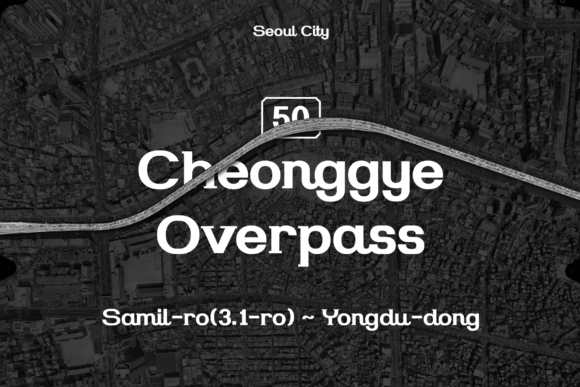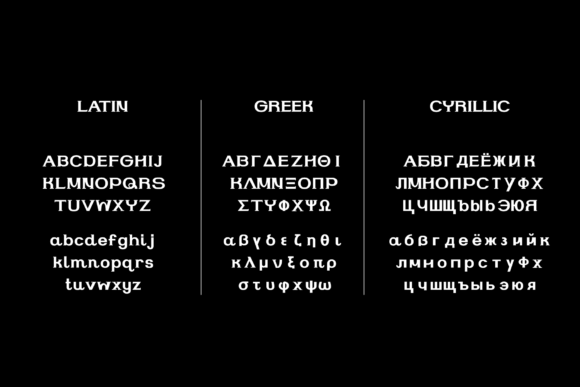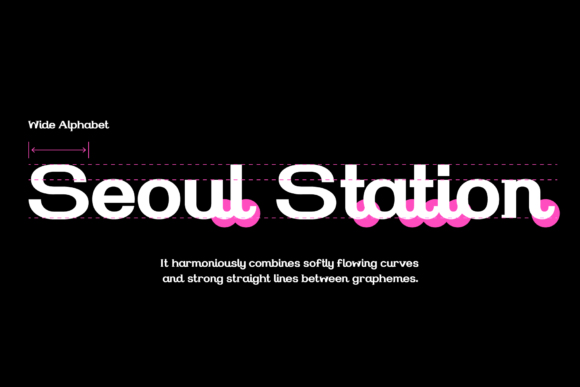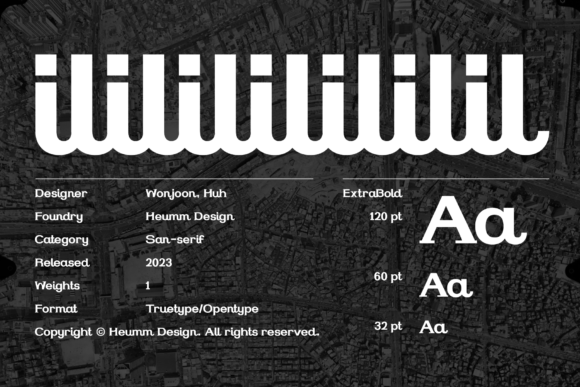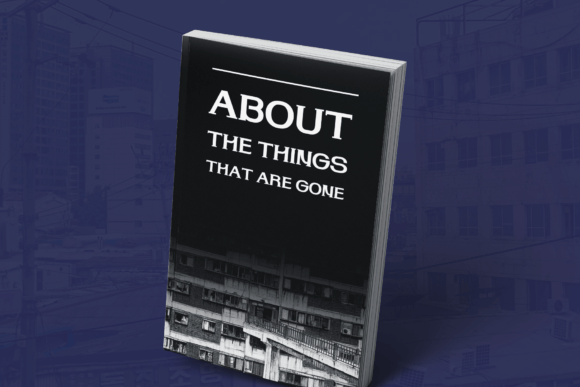
The Retro Charm of Cheonggye Font: A Designer’s Delight
I still remember the project that led me to discover the Cheonggye font. I was working on a branding campaign for a vintage-inspired clothing line, and I was struggling to find the perfect typeface that would evoke the right amount of nostalgia and playfulness. That’s when I stumbled upon Cheonggye, a typeface that immediately caught my attention with its thick strokes, wide flats, and retro feel. In this article, I’ll share my experience with Cheonggye, its features, and how to make the most of it in your designs.
What I Love About Cheonggye Font
Here’s what makes Cheonggye a standout typeface:
- ✨ Retro charm: Cheonggye’s unique blend of thick strokes and wide flats gives it a distinctive retro feel that’s perfect for titles, headings, and branding projects.
- ✅ Legibility: Despite its bold and ornate appearance, Cheonggye remains surprisingly legible, even at smaller sizes.
- 💡 Versatility: Cheonggye can be used for a wide range of projects, from vintage-inspired branding to modern designs that require a touch of nostalgia.
While Cheonggye is an excellent typeface, it’s not without its quirks:
- 🤔 Limited use for body text: Due to its bold and ornate nature, Cheonggye may not be the best choice for body text or long-form content.
- ⚠️ Some glyphs may not be suitable for all languages: As with any typeface, some glyphs may not be optimized for certain languages or scripts.
The Story Behind Cheonggye Font
Cheonggye was designed with the goal of creating a typeface that would evoke a sense of nostalgia and retro charm. The designer aimed to create a font that would be perfect for titles, headings, and branding projects that require a touch of classic elegance. Inspired by traditional Korean typography, Cheonggye features a unique blend of thick strokes and wide flats, with obtuse right-angled serifs that add to its distinctive character.
| What is Cheonggye font? | Cheonggye is a typeface for titles with thick strokes and wide flats, mainly produced with a retro feel. |
| What is the best use for Cheonggye font? | Cheonggye is ideal for titles, headings, and branding projects that require a touch of nostalgia and retro charm. |
| Can I use Cheonggye for body text? | While Cheonggye is legible, it’s not recommended for body text or long-form content due to its bold and ornate nature. |
| Is Cheonggye suitable for all languages? | Cheonggye is optimized for Korean language support, but some glyphs may not be suitable for all languages or scripts. |